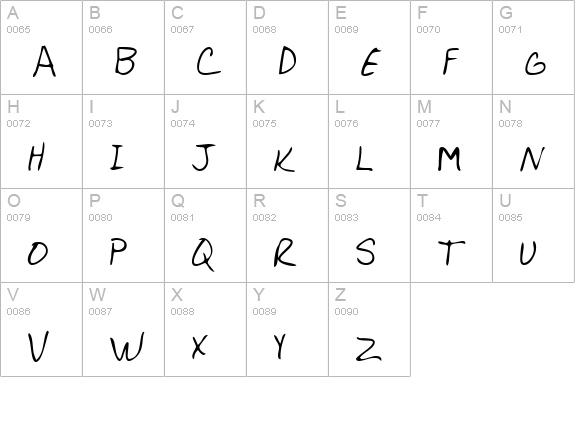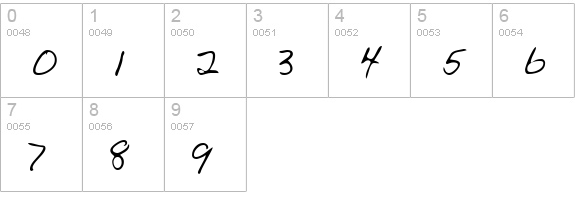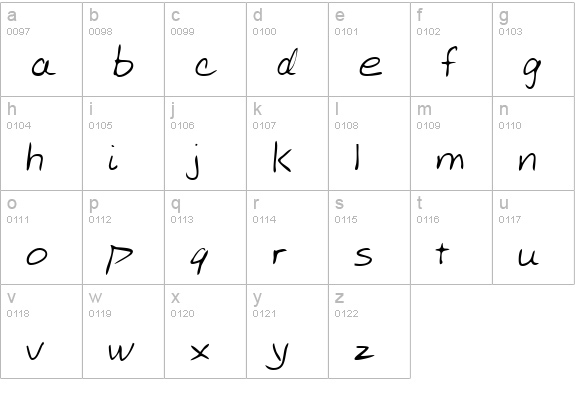
AllensHand Regular Font Details
AllensHand Regular is the standard, neutral variant in the AllensHand typeface family \xE2\x80\x94 well suited to general body text, paragraphs, and standard typographic work.
AllensHand Regular font is a charming and versatile typeface that exudes a warm, handwritten feel perfect for a variety of design projects. This font features smooth, flowing lines and a casual yet elegant appearance that adds a personal touch to any text. Whether you're creating invitations, greeting cards, posters, or branding materials, AllensHand Regular is sure to make your designs stand out. The best part? AllensHand Regular font is available for free download at FontsMarket.com. This means you can easily access this beautiful font and use it in your projects without any cost. Don't miss out on the opportunity to enhance your designs with the unique style of AllensHand Regular font. Download it now and let your creativity shine!